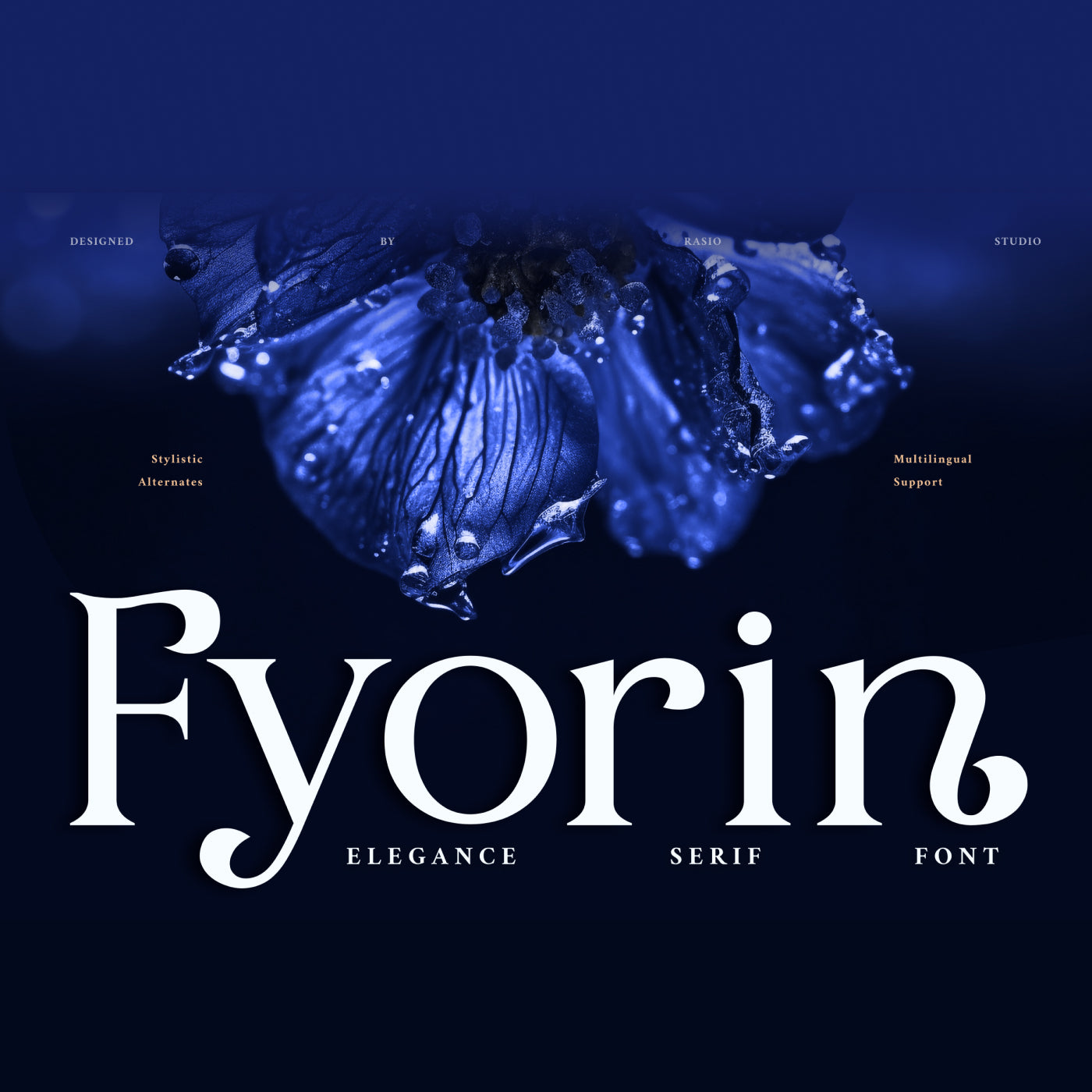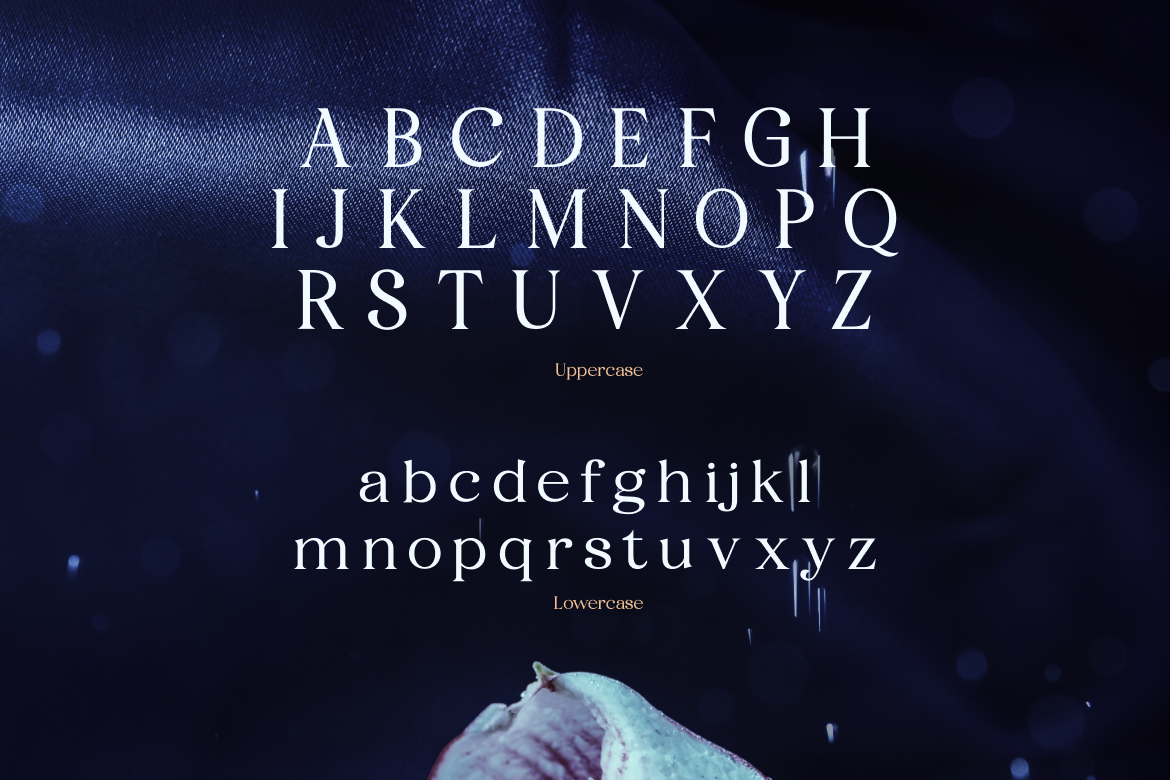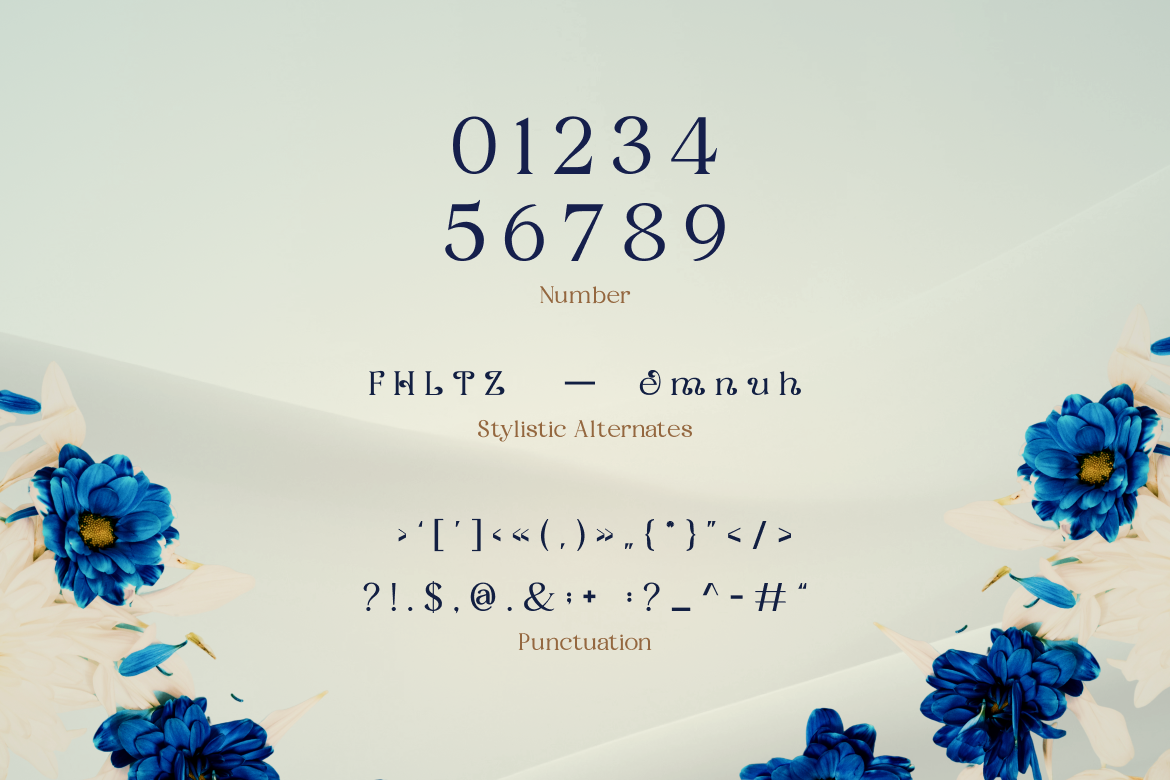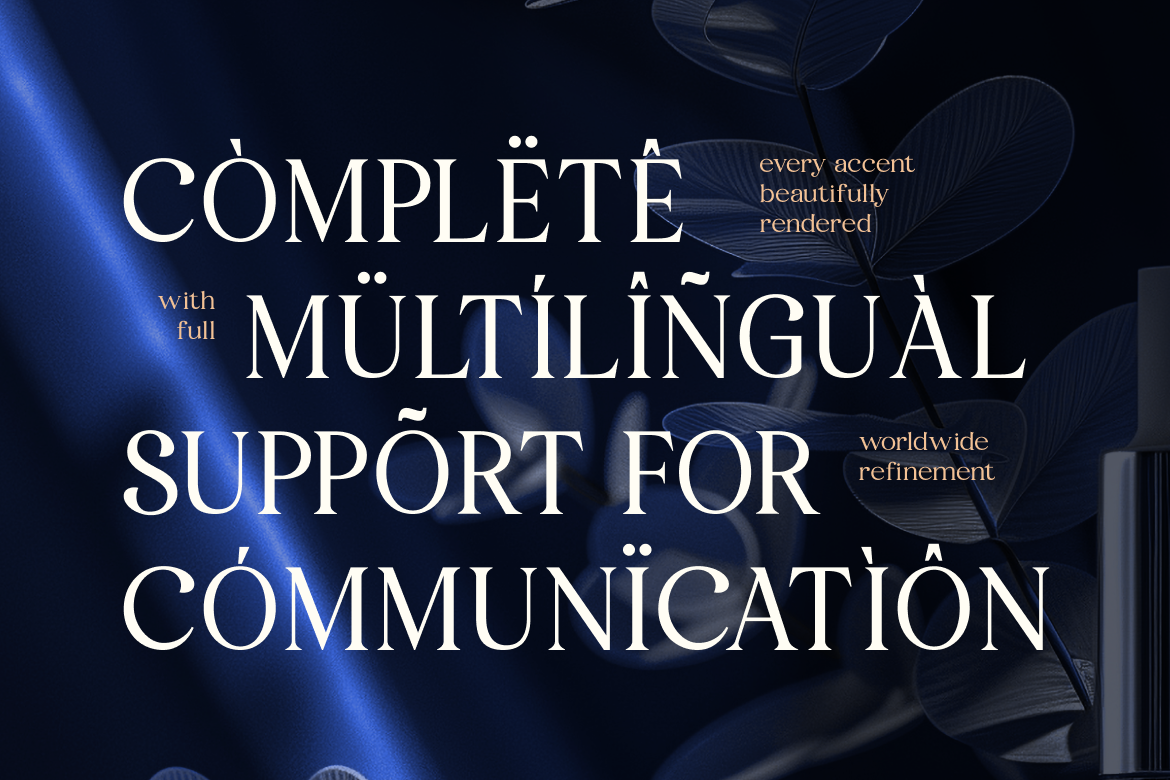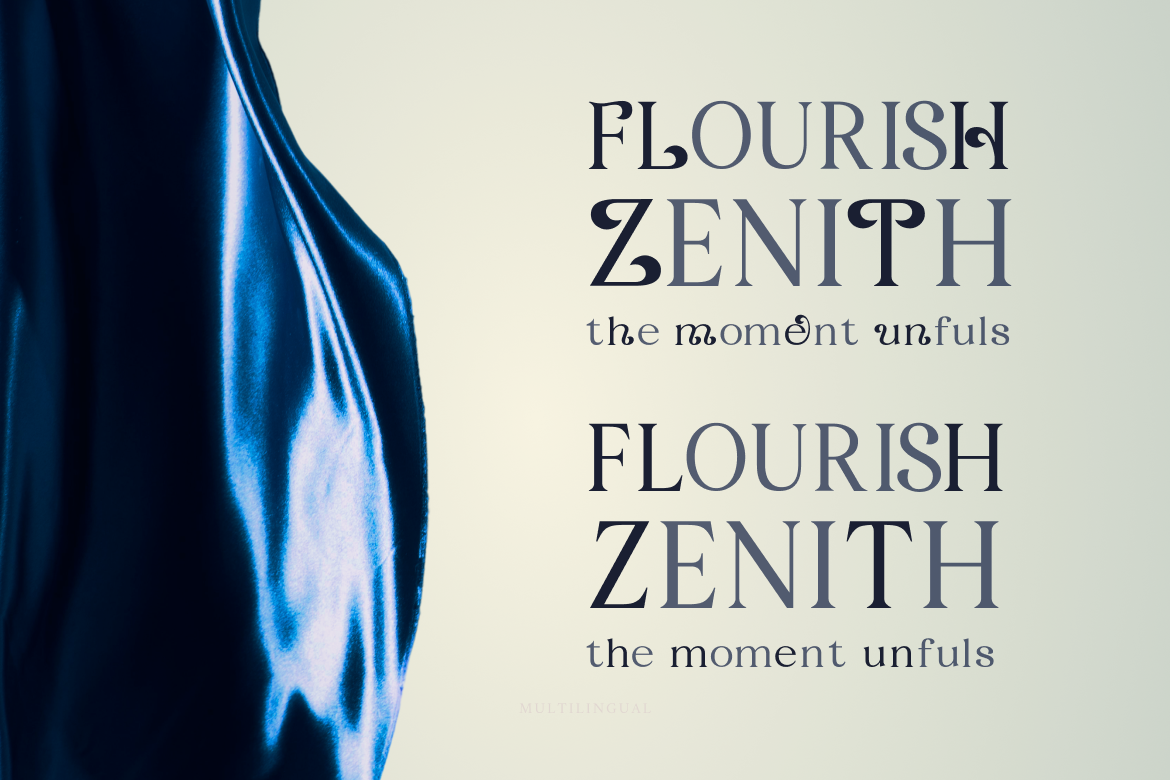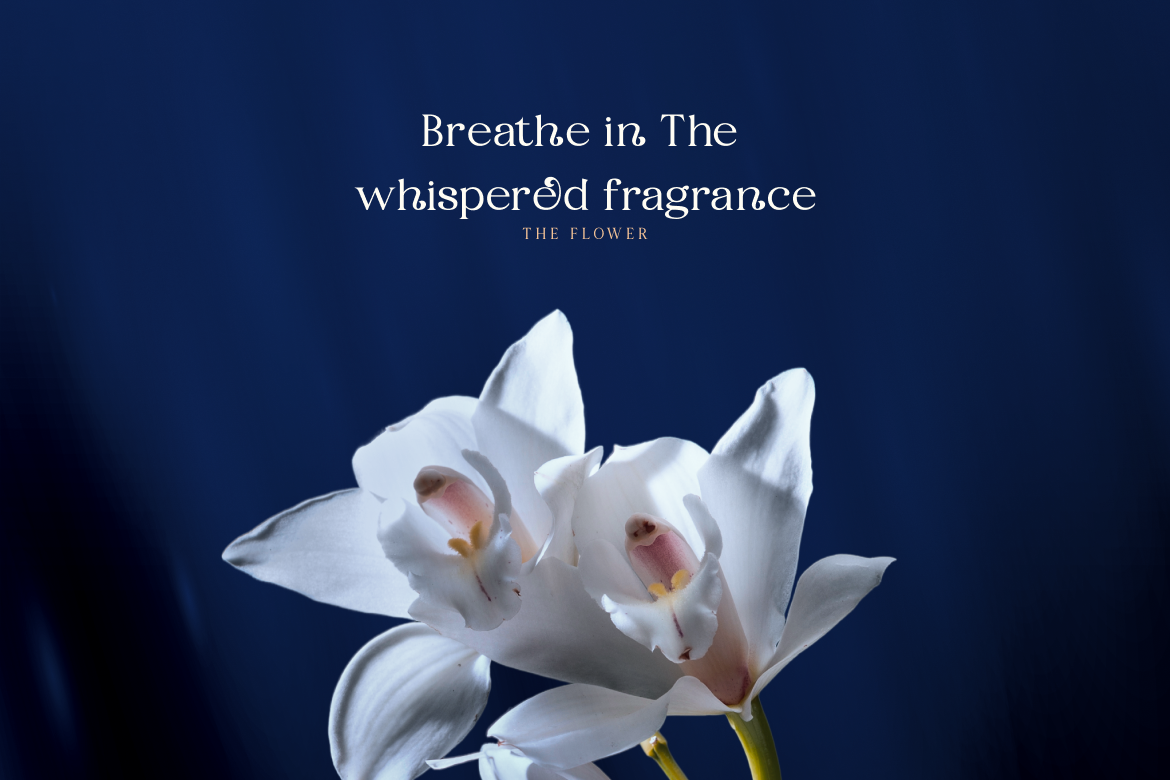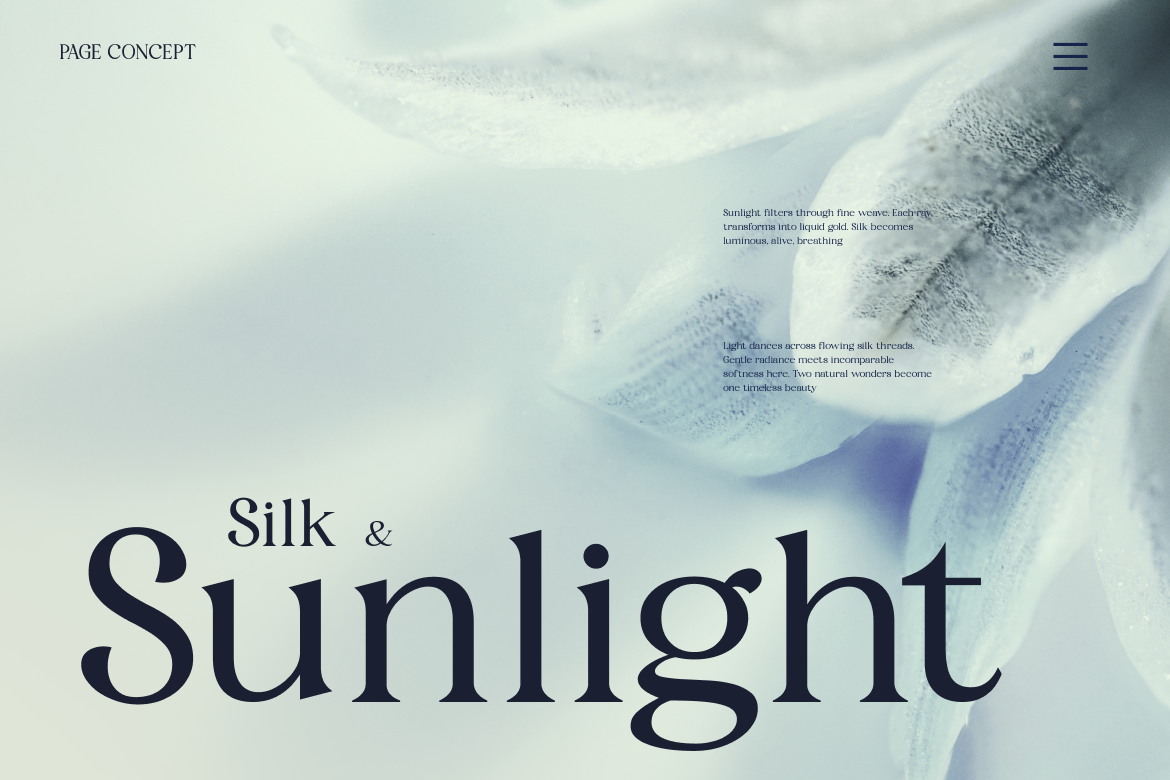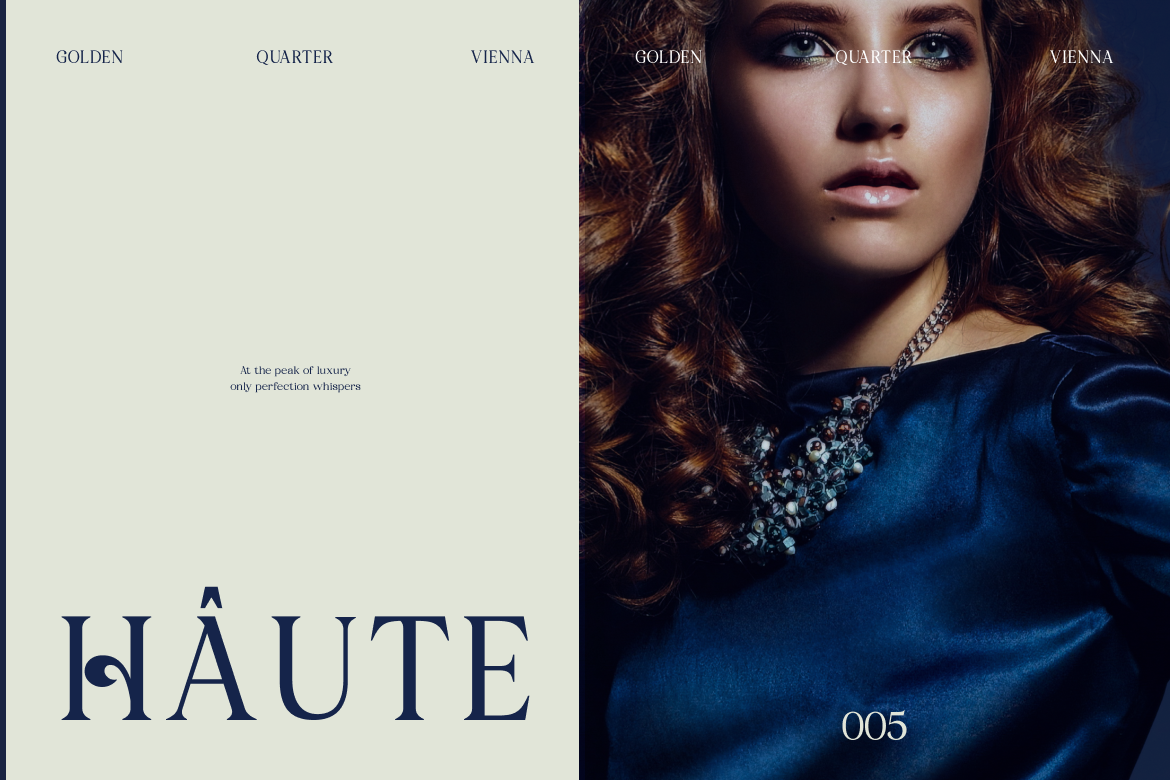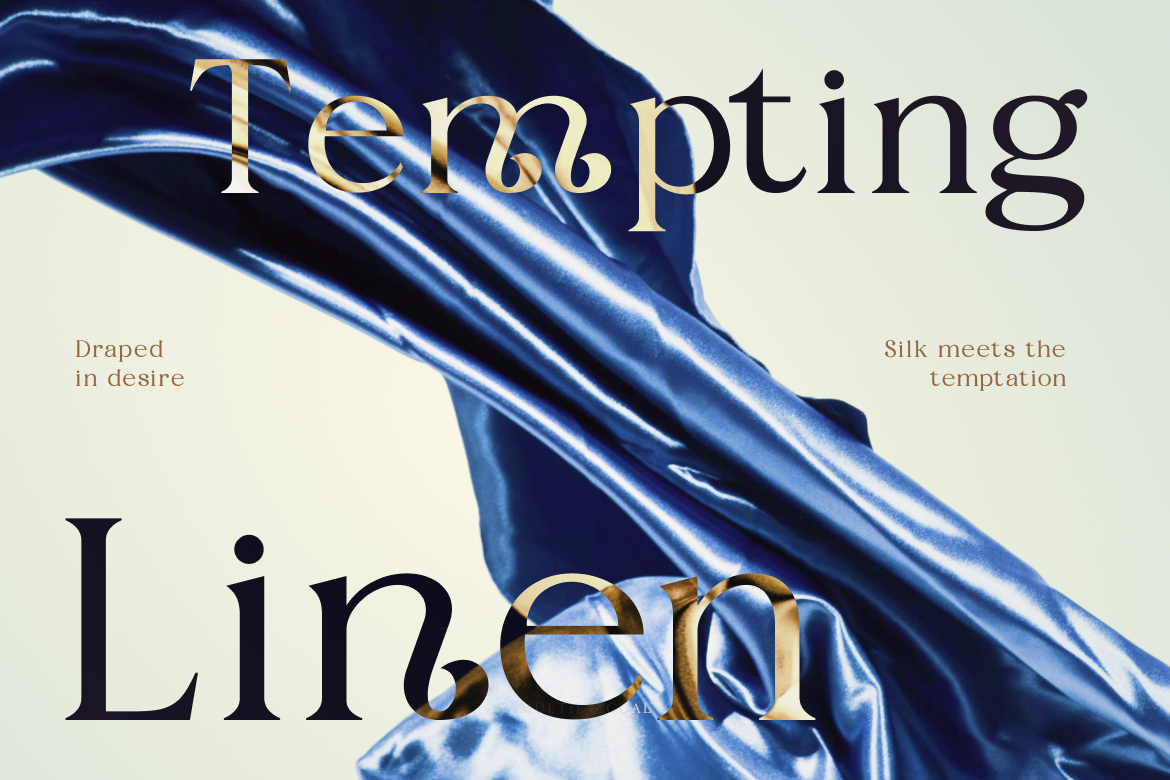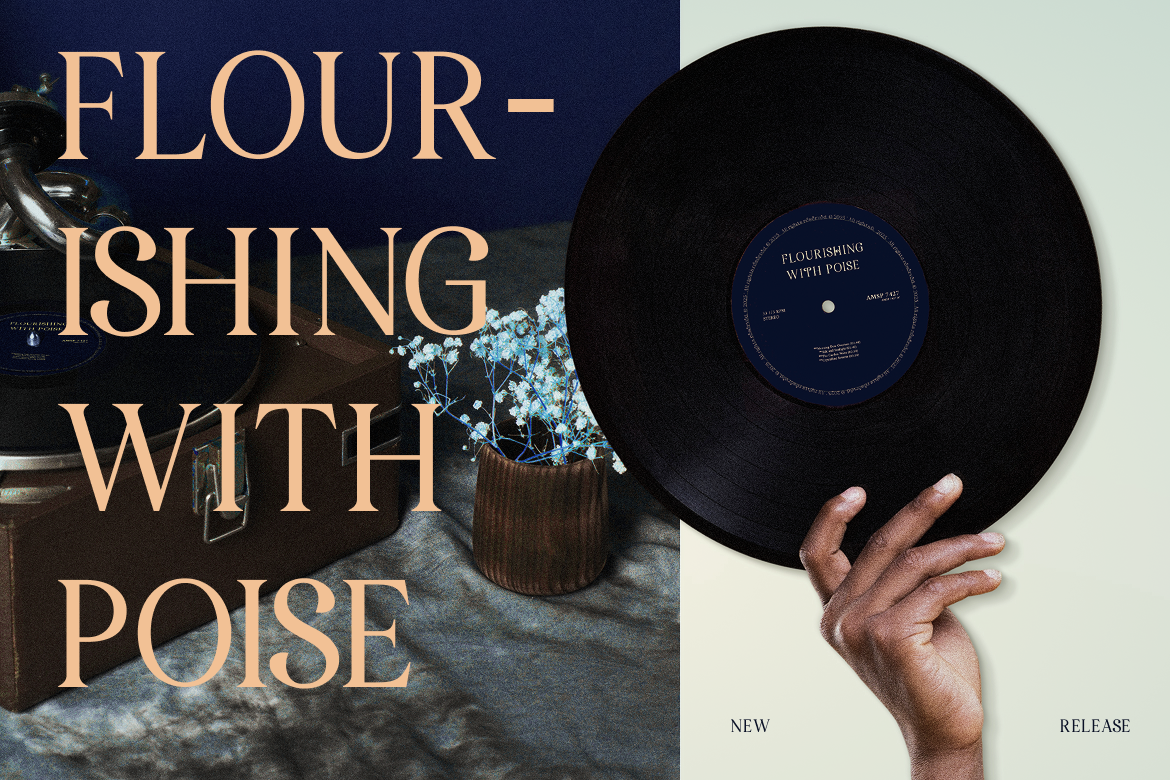
Fyorin Elegance Serif Font
Fyorin Elegance Serif Font is a refined and modern display serif that blends classic charm with contemporary grace. Its sculpted letterforms and high-contrast strokes exude sophistication, creating a luxurious and editorial presence in any layout. The font features stylistic alternates and multilingual support, giving designers expressive flexibility while maintaining timeless elegance. Perfectly balanced between sharp serifs and flowing curves, Fyorin delivers an artistic yet professional aesthetic that suits modern branding and refined visual projects.
Relevance and Use Cases is perfect for luxury branding, editorial magazine layouts, fashion campaigns, perfume packaging, logo design, wedding invitations, and creative posters that require a refined and elegant serif touch.
Numerals & Punctuation
Alternates & Ligatures
Fyorin Elegance Serif Font is a high-contrast display serif with sculpted letterforms, stylistic alternates, and multilingual support. It is available in TTF, OTF, and WOFF formats, and includes uppercase and lowercase letters, numerals, punctuation, alternates, and ligatures.